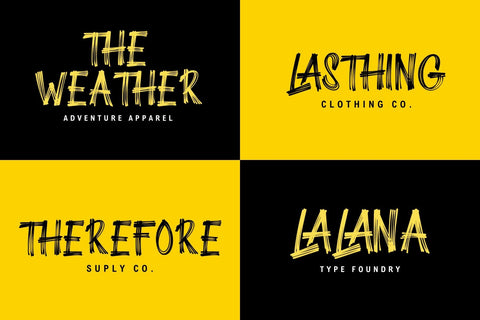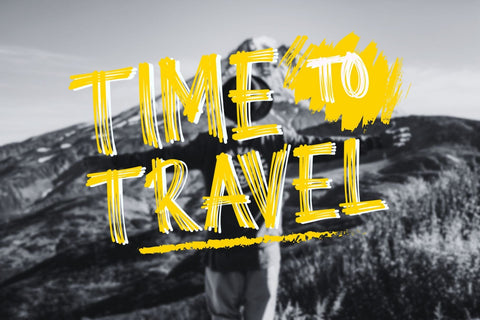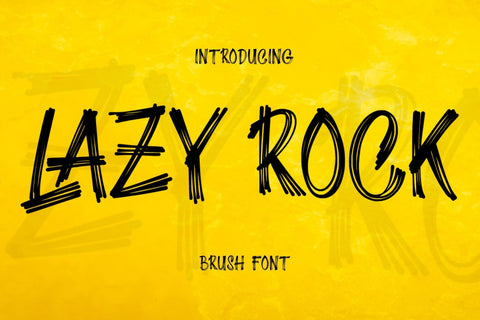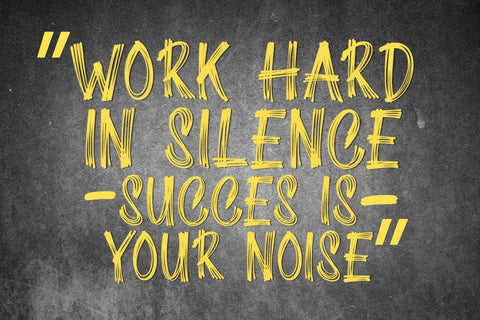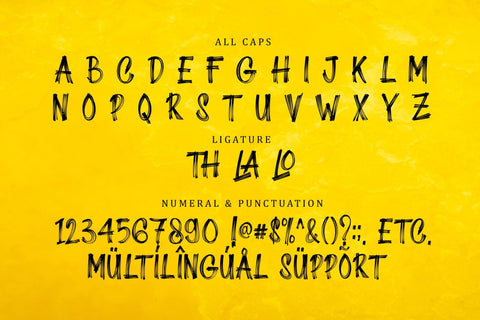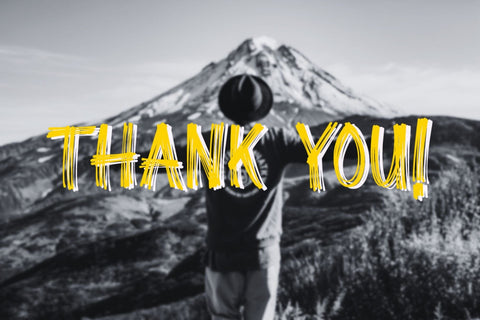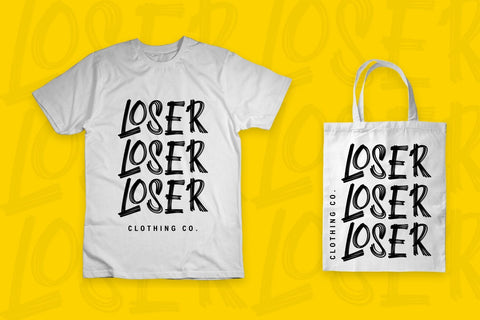
Lazy Rock
Lazy Rock is an incredibly unique brush font. Masterfully designed to become a true favorite, this font has the potential to bring each of your creative ideas to the highest level!